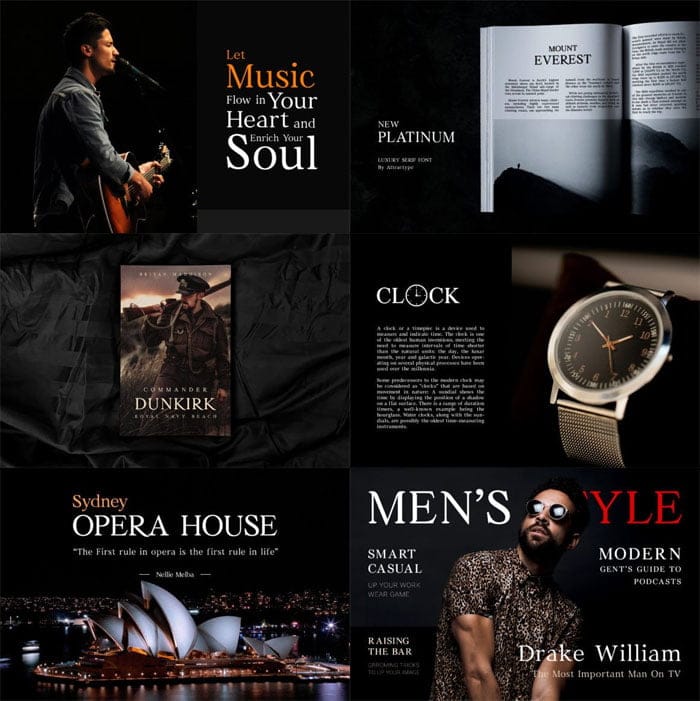
New Platinum Font
New Platinum is a modern and luxurious serif font. Fashionable, stylish, and incredibly versatile, this font is a great addition to your fonts library as it has the potential to elevate any creation. You Can Also Download Georgia Ballpark Font Duo.